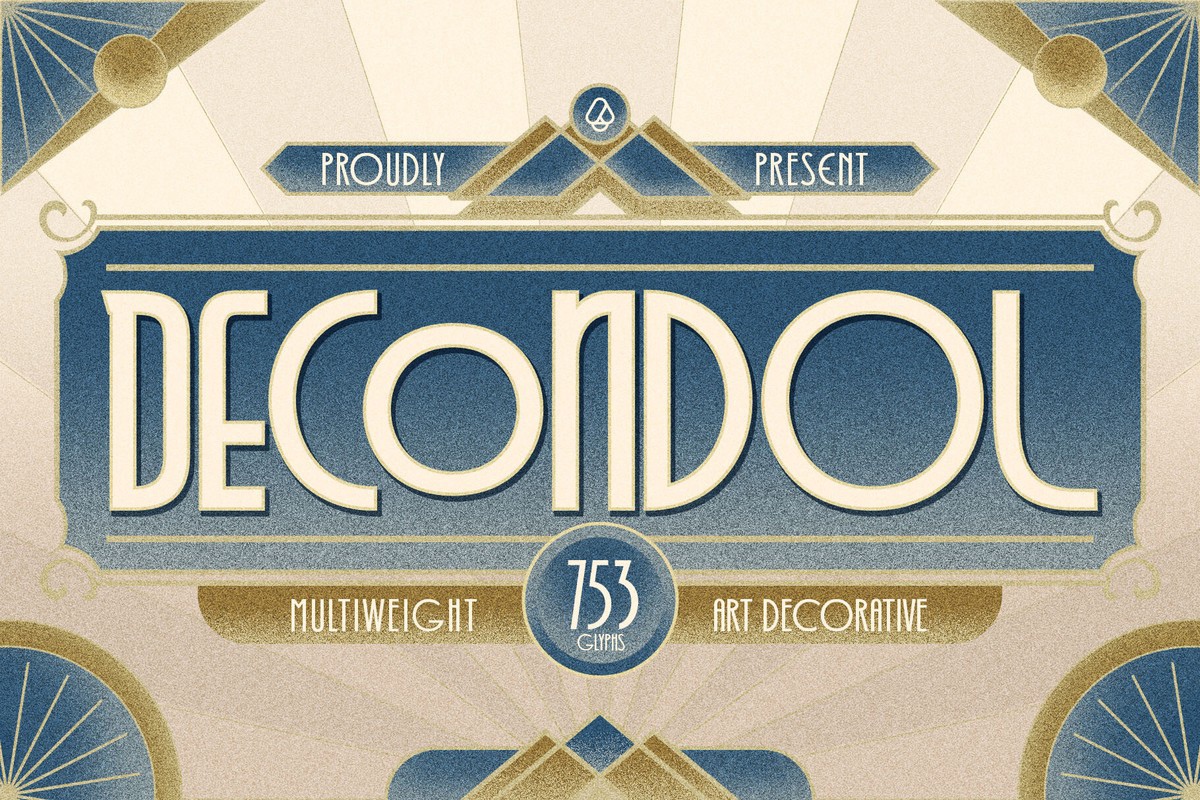
Decondol Font
Decondol Font is perfect for modern architecture firms, contemporary design studios, minimalist brand identity, luxury real estate marketing, sophisticated corporate communications, progressive art galleries, clean tech company branding, upscale interior design firms, avant-garde fashion labels, and refined cultural institutions.
Decondol Font is exciting because it embodies the principles of sophisticated minimalism and architectural precision, creating a typeface that represents refined elegance, structural intelligence, and contemporary design excellence. This font brings architectural sophistication and modern refinement to any project, making it ideal for brands that want to convey innovation, design leadership, and the elevated aesthetics of contemporary culture. Its clean geometry and sophisticated presence create an atmosphere of cultured modernism that resonates with audiences who appreciate thoughtful design and architectural beauty.
Decondol Font family includes thin, light, regular, medium, bold, and black weights, each available in roman and italic styles with architectural symbols and contemporary ornaments, providing designers with comprehensive tools for creating sophisticated modern typography and design-focused brand experiences.
Whether you're designing architectural firm branding, luxury development marketing, or sophisticated cultural materials, Decondol Font delivers unmatched contemporary elegance and design credibility. The font excels in both large-scale environmental applications and detailed design presentations where architectural sophistication and modern aesthetics create impressive brand experiences.
Design professionals choose Decondol Font for its ability to instantly communicate design excellence and contemporary sophistication while maintaining the clarity required for complex architectural and design communications. The font's modern character makes it particularly effective for architecture studios, design agencies, and luxury brands.
Each character demonstrates architectural precision and contemporary refinement, featuring clean construction and sophisticated proportions that create typography as elegant and enduring as modern architectural masterpieces and timeless design solutions.